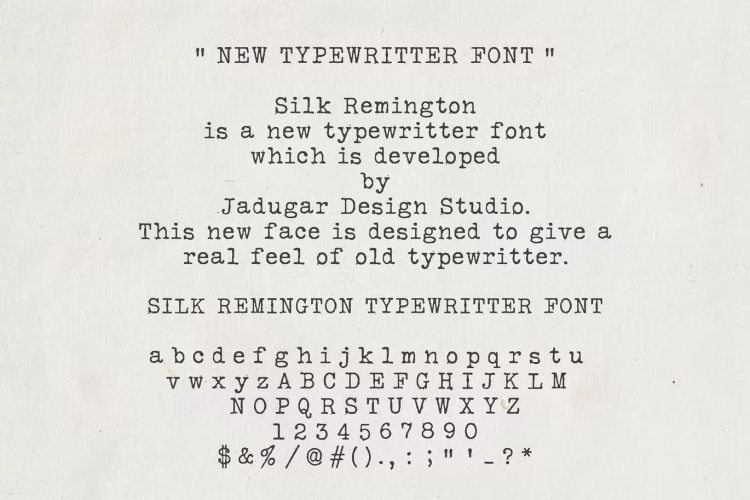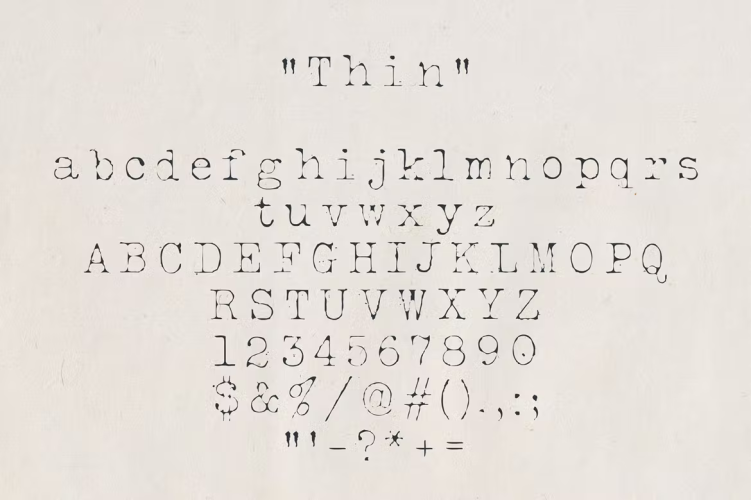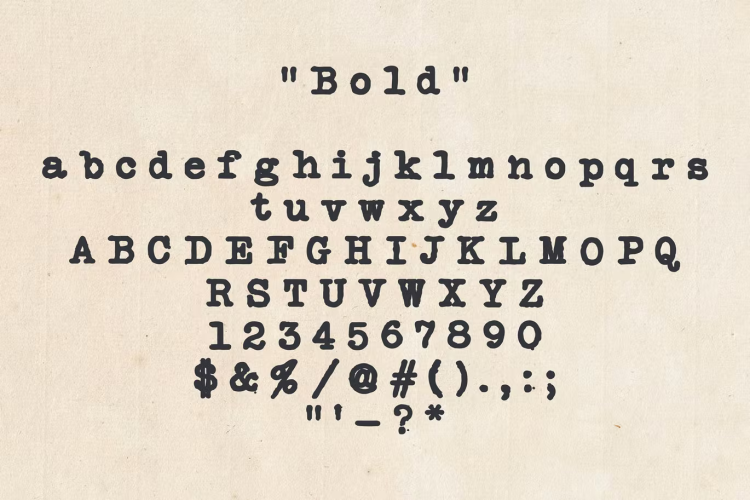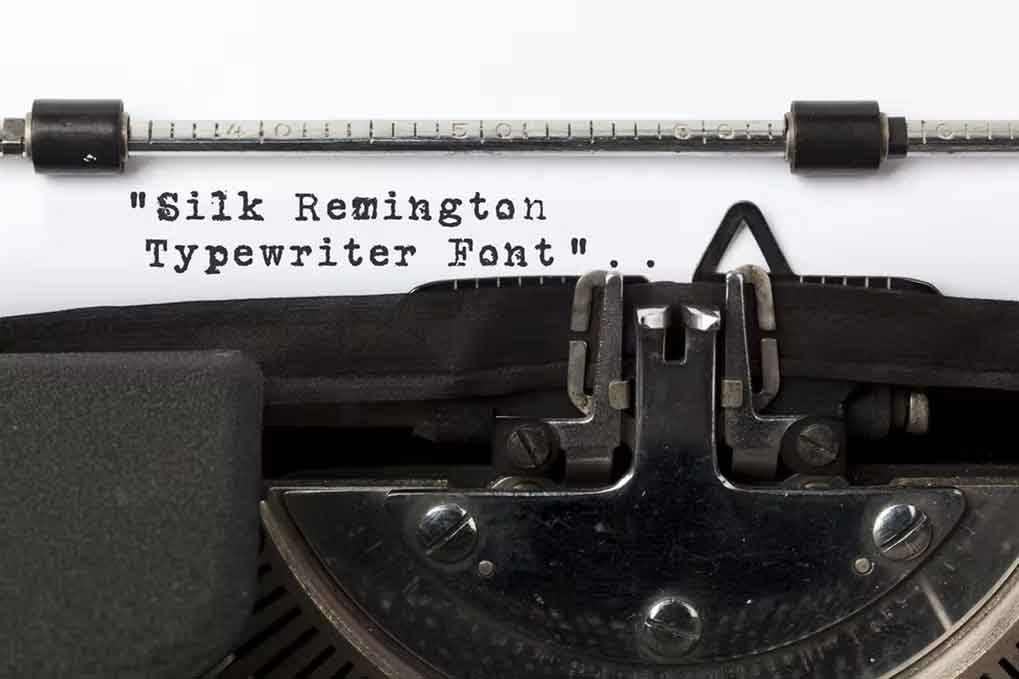
Silk Remington Font
” NEW TYPEWRITER FONT “
Silk Remington is a new typewriter font which is developed by Jadugar Design Studio. This new face is designed to give a real feel of old typewriter. Seven styles
Where Silk Remington Font works best
Silk Remington Font gives long-form text a classic, trustworthy rhythm — ideal for magazine spreads, annual reports and book interiors.
Pair Silk Remington Font with generous letter-spacing for wordmarks in fashion, hospitality, wine and jewellery branding.
Use Silk Remington Font for slide titles in Keynote, PowerPoint or Google Slides to add authority without looking dated.
What is Silk Remington Font good for?